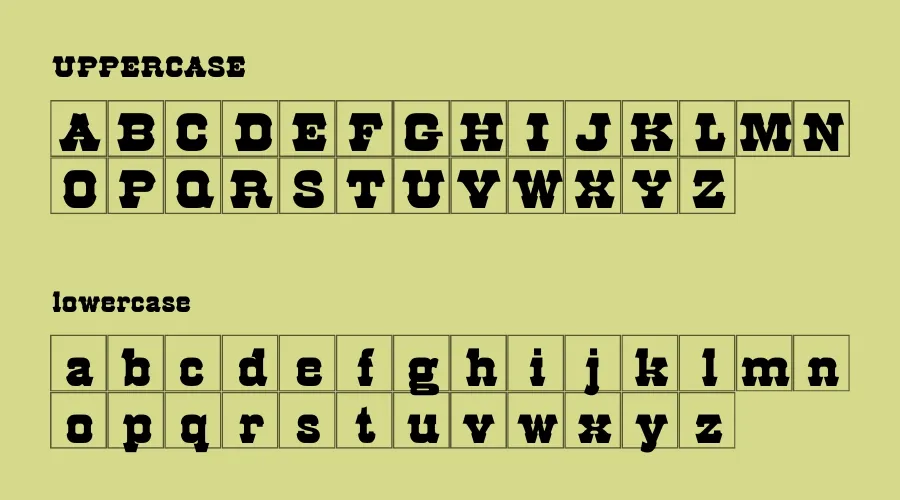
Rodeo Font
About Rodeo Font
OPTIFONT created Rodeo Font this typography collection will give your design a cool and unique vibe. With its modular design and multifunctional capabilities, this font mixes well with other fonts without losing its retro lineal style.
This typeface can be used for text designs, articles, and more digital designs.  There are many uses for this typeface in the design world. Creating eye-catching card designs is possible with this typeface. Using it, you can also create long and short paragraphs. This font is very close to the rock electric font.
Artworks and placards designs can also be created with it.  With this typeface, your text and design will look well-ordered and sparkling. It can be used to create pictures, social media posts, vibrant logos, and many other kinds of designs. Website names and headings can also be made with this font.
Rodeo is the unique text style for all your fun plans textual style was planned by OPTIFONT. It is a fancy typeface.